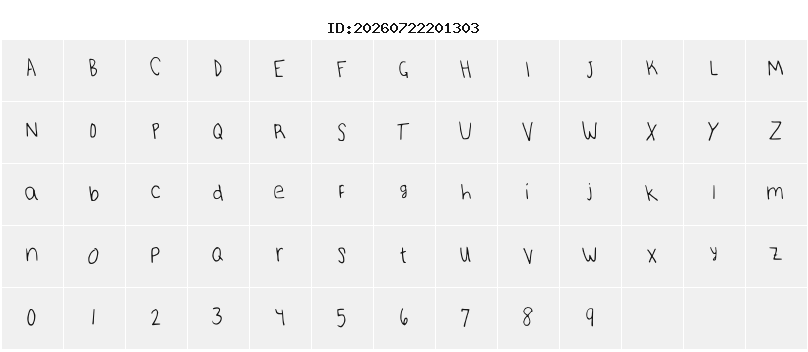
• Font Name: MyRandaRegular
• Full Font Name: MyRandaRegular
About MyRandaRegular.ttf
MyRandaRegular.ttf is a modern, elegant sans-serif font designed for ultimate readability and visual harmony. Perfect for branding, headlines, web design, and print materials.